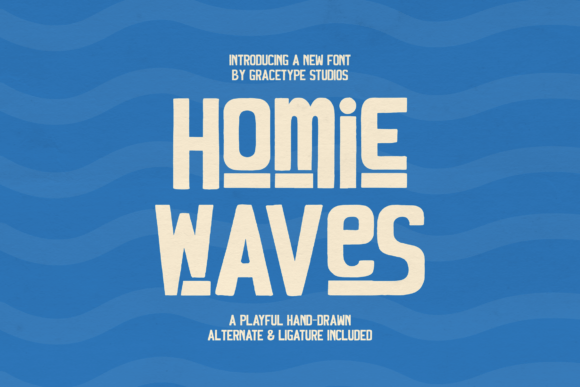
Ride the Creative Tide with the Homie Waves Typeface
In the vast landscape of digital typography, where geometric sans-serifs and rigid serifs often dominate corporate communications, there is a distinct hunger for typefaces that breathe. Designers and creators are increasingly seeking fonts that possess soul, irregularity, and a tangible sense of place. Enter Homie Waves, a playful and chunky hand-drawn typeface that captures the spirit of the ocean. This font is not merely a collection of characters; it is a visual representation of buoyancy, movement, and the laid-back culture associated with coastal living. By integrating Homie Waves into a project, designers can instantly inject a layer of personality that feels both custom-crafted and effortlessly cool.
The Anatomy of a Hand-Drawn Aesthetic
To understand why Homie Waves resonates so deeply with specific audiences, one must first examine its structural DNA. Unlike algorithmically generated fonts that strive for perfect consistency, this typeface embraces the imperfections inherent in human creation. The strokes are thick and irregular, mimicking the natural variation found when a marker or brush meets paper. This "chunky" quality gives the letters weight without making them feel heavy; instead, they appear buoyant, as if floating on the surface of the water.
The design philosophy behind Homie Waves rejects the sterile perfection of modern minimalism. In its place, it offers a warm, organic texture that invites the eye to linger. The curves are soft yet defined, avoiding sharp angles that might suggest aggression or rigidity. This approach aligns perfectly with the concept of the "homie" vibeโa term rooted in community, friendship, and relaxation. When viewers encounter text set in this font, they subconsciously register a sense of approachability and fun. It is a visual cue that signals the content is meant to be enjoyed rather than just consumed.
Dynamic Flow Through Alternates and Ligatures
What truly sets Homie Waves apart from standard display fonts is its sophisticated use of unique alternates and ligatures. These features are the secret weapon for designers aiming to create dynamic, flowing text that looks truly custom. A static line of text can sometimes feel lifeless, even with a great font choice. However, by utilizing the built-in alternates within Homie Waves, a designer can vary the shape of individual letters to break up monotony and create a rhythm that mimics the ebb and flow of ocean waves.
Ligatures play a crucial role in this fluidity. They allow specific letter pairs to connect seamlessly, creating new shapes that would not exist in isolation. This connectivity enhances the reading experience by guiding the eye smoothly across the word, reinforcing the theme of continuous motion. For instance, a brand name set in this typeface can be transformed into a unique logo mark simply by selecting the appropriate alternate characters. This capability reduces the need for external graphic manipulation software, allowing the font itself to serve as a primary design tool.
Strategic Applications in Brand Identity
The versatility of Homie Waves extends far beyond simple headlines. Its robust character makes it an ideal candidate for building a cohesive visual identity, particularly for brands operating in lifestyle sectors. The font's inherent energy makes it a powerful asset for surf brands, beach-themed apparel lines, and summer event posters. In these contexts, the typography does more than convey information; it sells a lifestyle.
Consider a surf shop looking to revamp its packaging. Using a standard serif font might communicate reliability, but it fails to capture the thrill of the sport. Homie Waves, however, immediately communicates the excitement and freedom of surfing. The thick strokes ensure legibility even at smaller sizes on product tags, while the playful nature ensures the brand stands out on crowded shelves. Similarly, for summer music festivals or beach clean-up events, this typeface serves as an instant invitation. It tells potential attendees that the event will be fun, communal, and relaxed.
- Surf and Skate Brands: The irregular strokes mirror the unpredictable nature of the ocean and the street, creating an authentic connection with the target demographic.
- Apparel and Merchandise: Screen printing works exceptionally well with the chunky style of Homie Waves, ensuring durability and high visibility on t-shirts, hats, and tote bags.
- Event Marketing: Posters and flyers utilizing this font grab attention quickly, promising an experience that is vibrant and engaging.
- Coffee Shops and Breweries: Establishments with a casual, community-focused atmosphere can use this typeface to reinforce their welcoming environment.
Creating Custom Visuals Without Graphic Overhead
One of the most significant advantages of using a feature-rich font like Homie Waves is the reduction in workflow complexity. Traditionally, achieving a custom look required a graphic designer to manually alter vector paths or draw lettering from scratch. This process is time-consuming and expensive. With the extensive library of alternates included in this typeface, designers can achieve a bespoke look directly within their layout software.
This efficiency allows for rapid prototyping. A marketing team can test multiple variations of a headline in minutes, exploring different combinations of alternates to see which arrangement best suits the brand message. The ability to create unique compositions without leaving the text editor streamlines the creative process, enabling teams to iterate faster and focus more on strategy than execution. Furthermore, because the variations are encoded within the font file, the final output remains scalable and editable, preserving the integrity of the design across various media formats.
Ultimately, the value of Homie Waves lies in its ability to transform ordinary text into an experience. It invites users to slow down, appreciate the details, and connect with the message on a deeper level. Whether you are a seasoned professional or a hobbyist looking to add some flair to your next project, this typeface offers a refreshing alternative to the status quo. It is a testament to the power of design to evoke emotion and create lasting impressions.